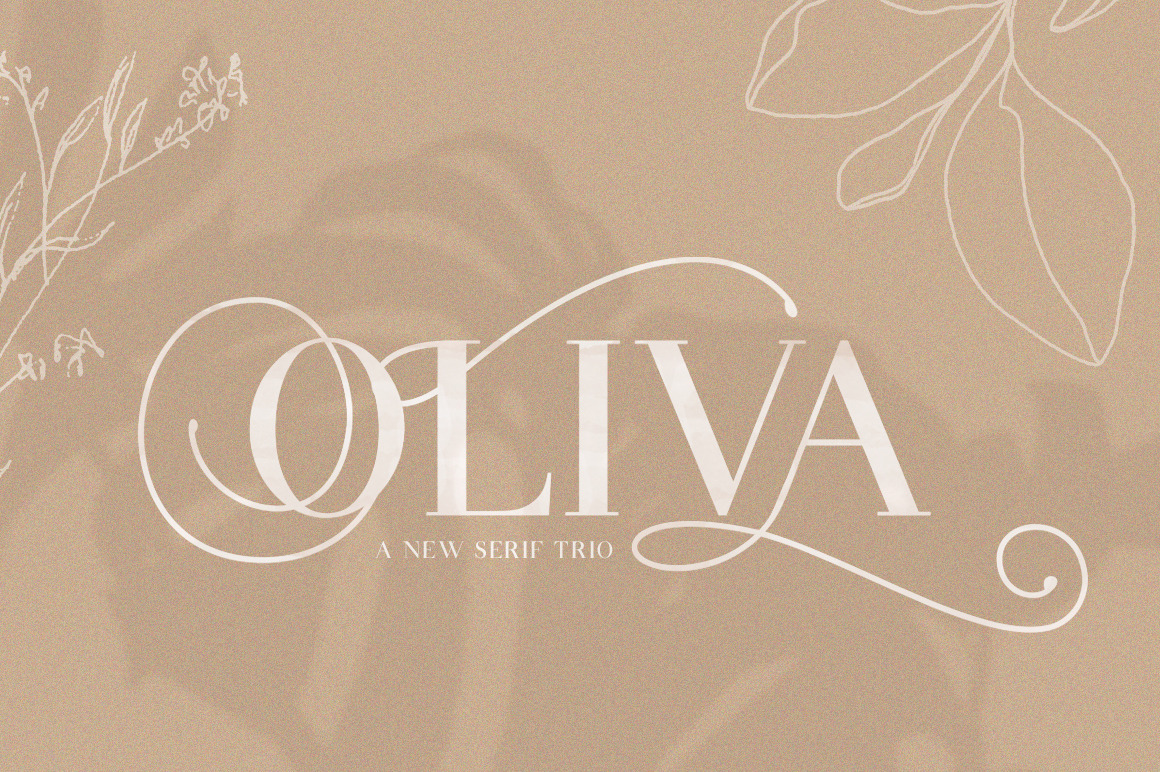
Oliva Serif Font
Oliva is here! She’s modern yet classy, poised and holds herself up high! Fits well into most design situations and adds her flair and style wherever it’s needed. Her alternated would make any swirl lover bow down and kneel before her! Enjoy and show her off!